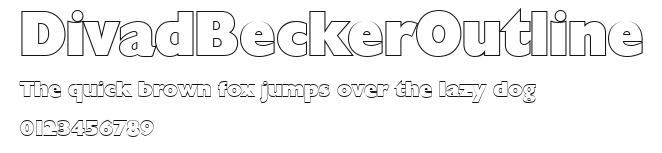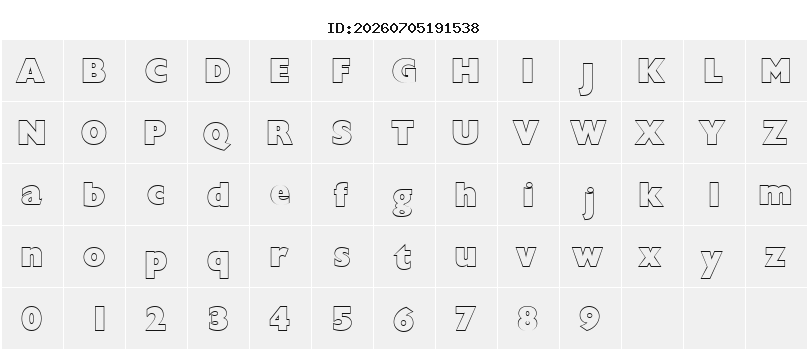
DivadBeckerOutline Preview
• Font Name: DivadBeckerOutline
• Font ID: Alts:DivadBeckerOutline-Bold
• Full Font Name: DivadBeckerOutline-Bold
• Version: 1.0 Wed May 03 18:51:43 2000
• PostScript Name: DivadBeckerOutline-Bold
• Character Count: 213
About DivadBeckerOutline.ttf
DivadBeckerOutline.ttf is a modern, elegant sans-serif font designed for ultimate readability and visual harmony. Perfect for branding, headlines, web design, and print materials.